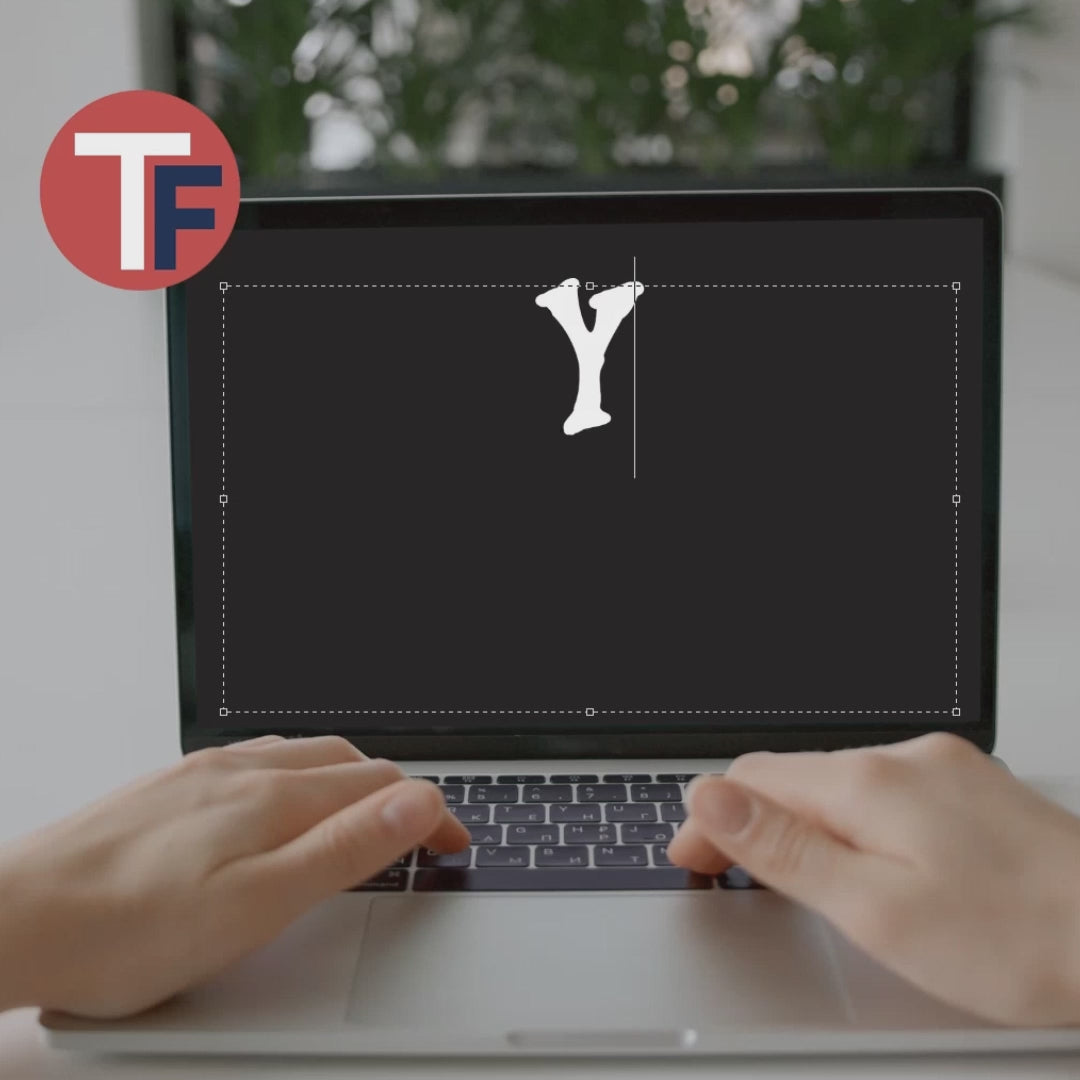
Creepy Tales Font
Creepy Tales Font: Spook Your Audience with Every Character
Invoke the eerie charm of classic young adult horror with the Creepy Tales font, inspired by the chilling stories that have thrilled readers for decades. This font is perfect for projects that require a touch of the mysterious and the macabre.
The Creepy Tales font features whimsically spooky characters that echo the iconic style of beloved scary book series for kids. Its jagged and irregular shapes create an unsettling yet engaging appearance, ideal for captivating an audience's imagination.
Whether you're crafting chilling invitations, spooky posters, or eerie digital content, the Creepy Tales font is your go-to for adding a dose of fright to your creative endeavors. Perfect for Halloween-themed designs, youth-oriented horror literature promotions, or any project aiming to capture the essence of spine-tingling adventures that are scary but not too scary.